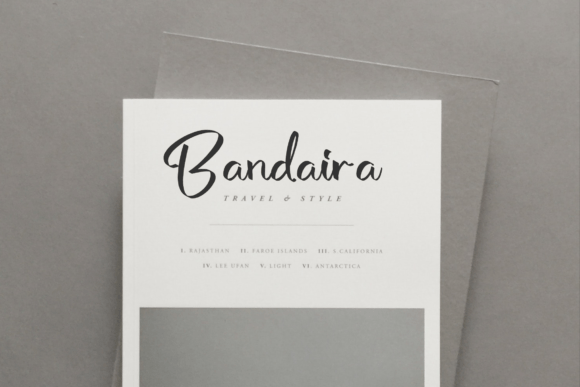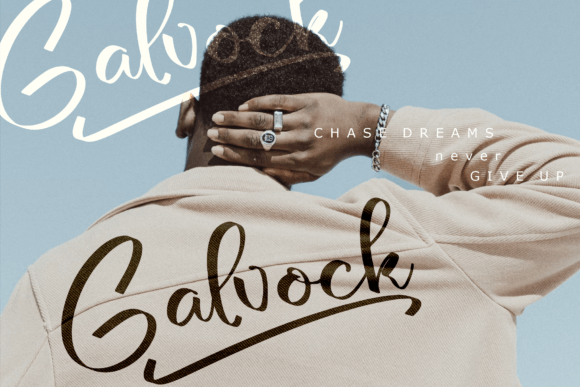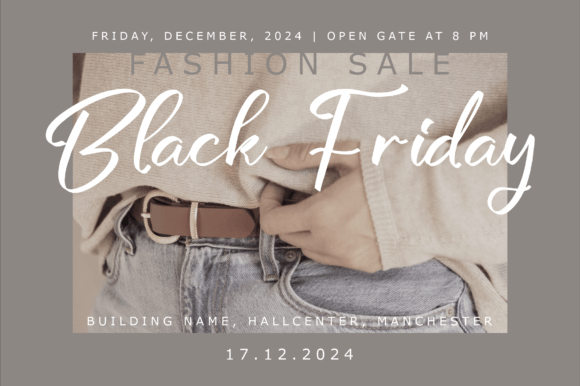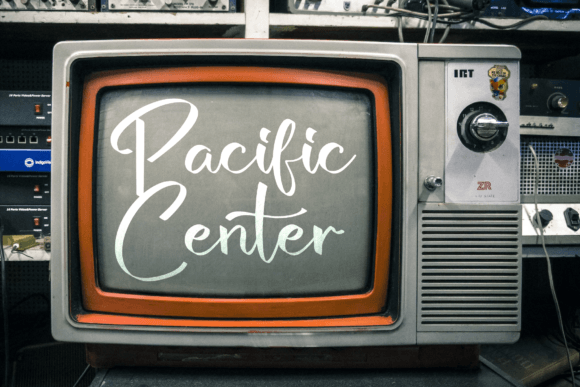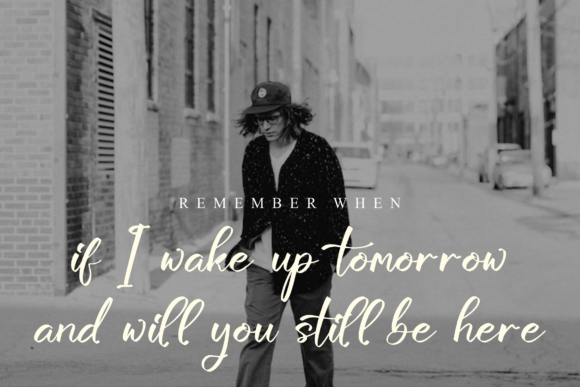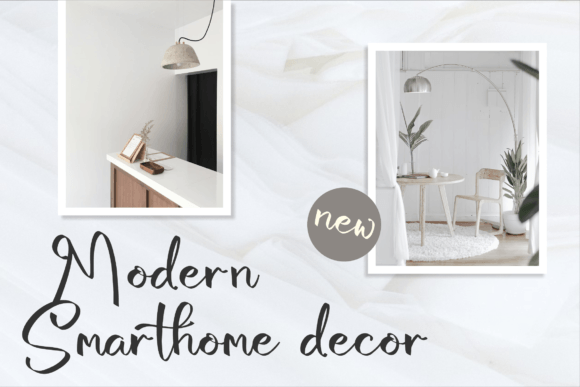
The Designer’s Delight: Bottanicy Sketch Font
I’ll never forget the time I was working on a project for a client who wanted a font that was both elegant and playful. I had spent hours scouring the internet for the perfect one, but nothing seemed quite right. That was until I stumbled upon Bottanicy Sketch Font. It was love at first sight! 💕
With its flowing, handwritten style and elegant touch, Bottanicy Sketch Font was exactly what I needed to bring my client’s vision to life. And now, I’m excited to share my experience with you, so you can fall in love with it too!
- ✨ Elegant and sophisticated, yet playful and approachable
- 💫 Supports OpenType features, glyphs, and stylistic alternates for added versatility
- 🎨 Perfect for a wide range of design projects, from branding and advertising to packaging and more
While Bottanicy Sketch Font is an amazing addition to any design project, there are a few things to keep in mind:
- ⚠️ Some users may find the font a bit too ornate for very small sizes or body text
- 🤔 Limited availability of certain characters or glyphs in certain applications
The Story Behind Bottanicy Sketch Font
Bottanicy Sketch Font was designed by a team of creatives who wanted to capture the beauty of handwritten typography. Inspired by the intricate details of botanical illustrations, they crafted a font that’s both elegant and approachable.
| Font Name | Bottanicy Sketch Font |
| Author | Glorytype Studio |
Q: Is Bottanicy Sketch Font suitable for body text?
A: While Bottanicy Sketch Font is highly legible, it’s best suited for headings and titles. For body text, you may want to choose a simpler font.